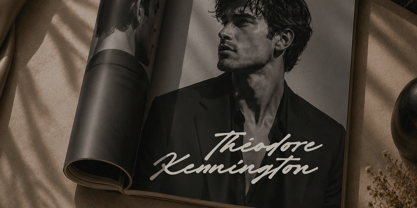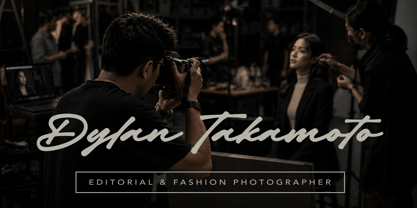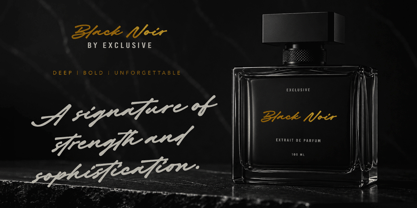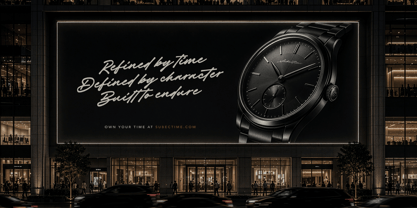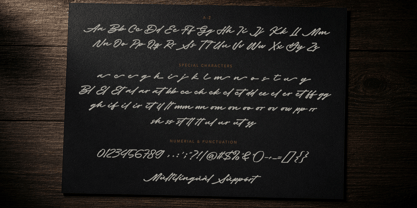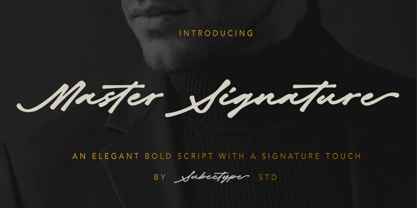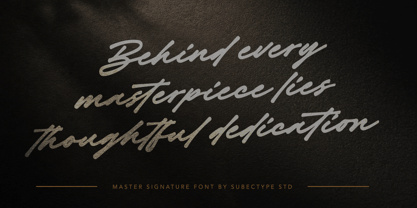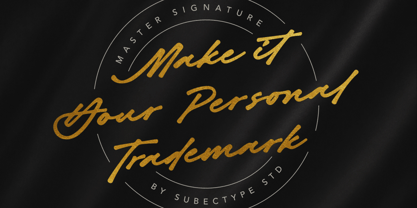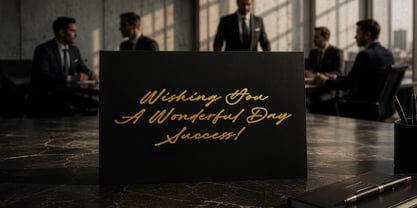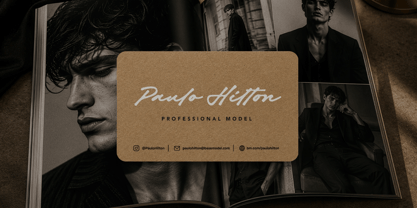
Master Signature
Die Schriftfamilie Master Signature wurde von Rangga Subekti entworfen und von Subectype veröffentlicht. Master Signature enthält 1 Stile. Mehr über diese Familie
Master Signature is a bold and elegant signature font designed to bring a professional handwritten look to your creative projects. Inspired by authentic marker signatures, this handwritten script font features smooth curves, bold strokes, and natural letterforms that create a strong and memorable visual impact.
This versatile signature font is perfect for logo design, branding, packaging, product labels, social media graphics, business cards, photography watermarks, wedding invitations, and luxury marketing materials. Whether you're creating a modern brand identity or a stylish signature logo, Master Signature delivers a confident and sophisticated appearance.
Whether used as a logo font, branding font, or modern script font, Master Signature delivers a timeless look that enhances visual identity across a wide range of creative applications.